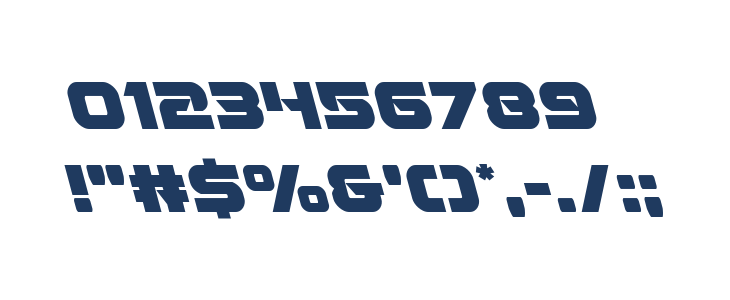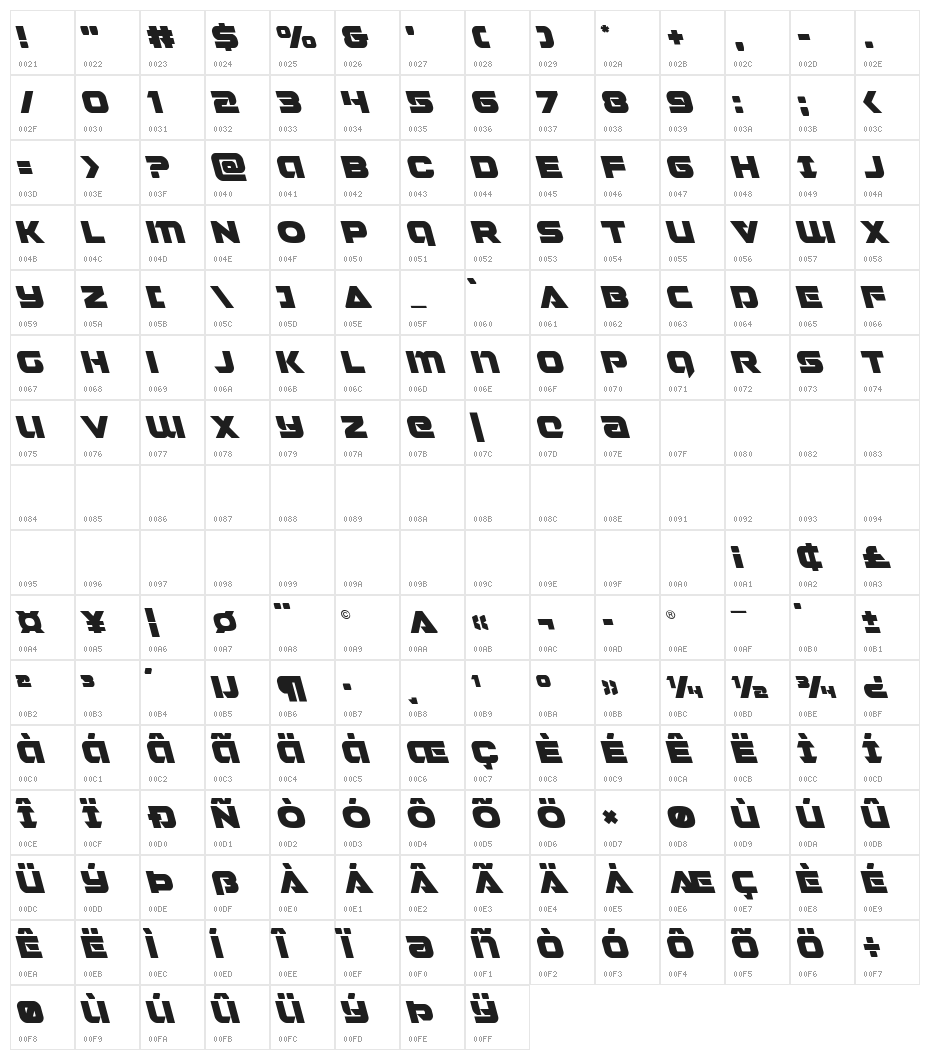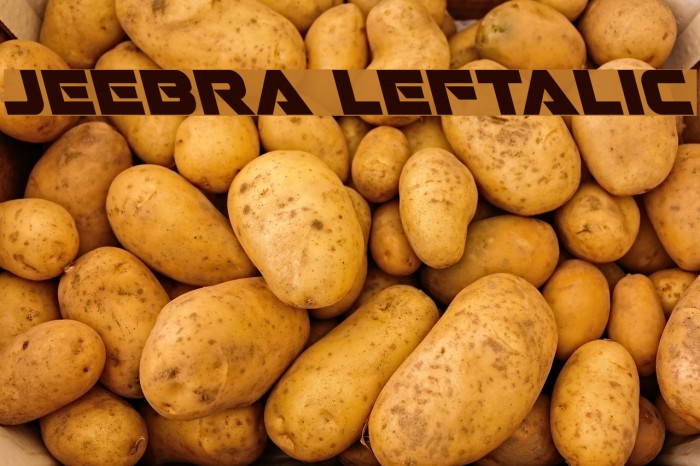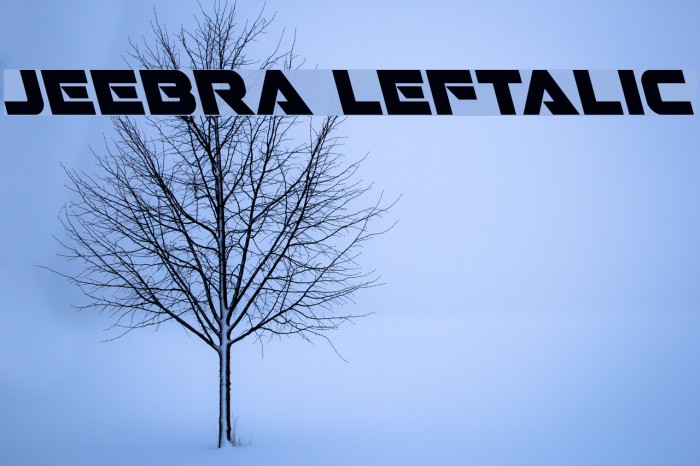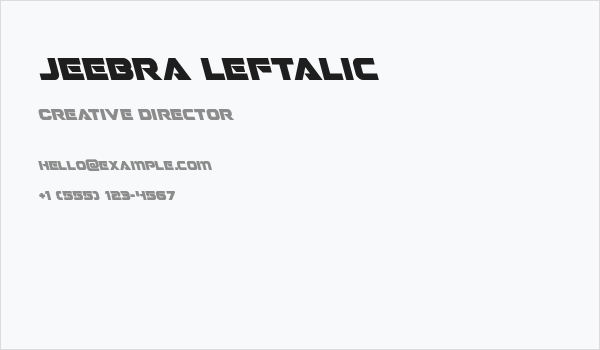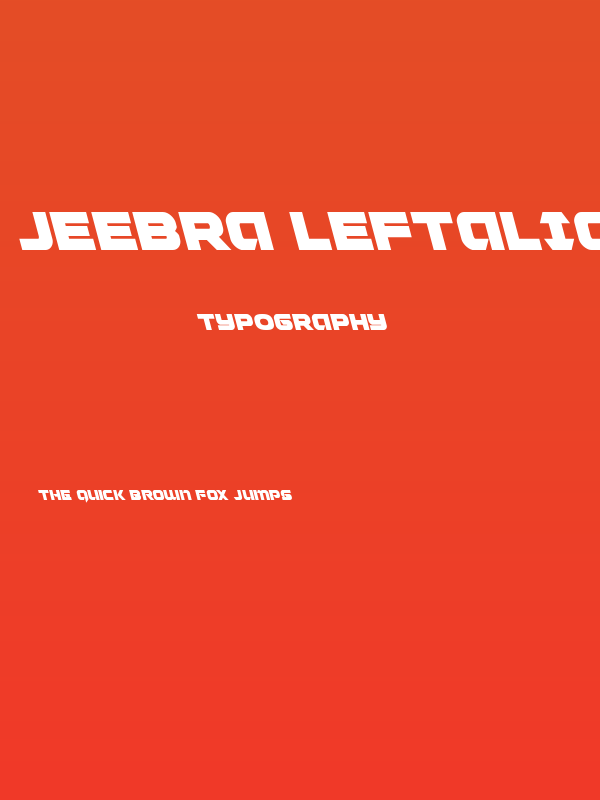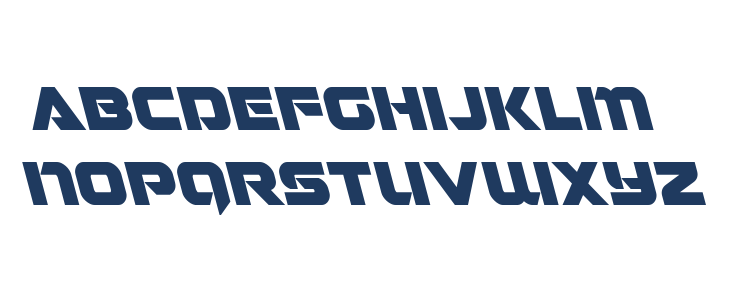
Jeebra Leftalic Font
Jeebra Leftalic Description
This font features a bold, angular design with a futuristic and dynamic appearance. The characters are slanted, giving a sense of movement and speed. The strokes are thick and consistent, creating a strong visual impact. The geometric shapes and sharp edges contribute to its modern and edgy style. The uppercase and lowercase letters maintain a uniform width, while the numbers and special characters follow the same bold and angular theme. This font is ideal for projects that require a striking and contemporary look.
| Use Case | Logos, Headlines |
| Proposed Projects | Ideal for branding, sports team logos, video game titles, and technology-related designs. |